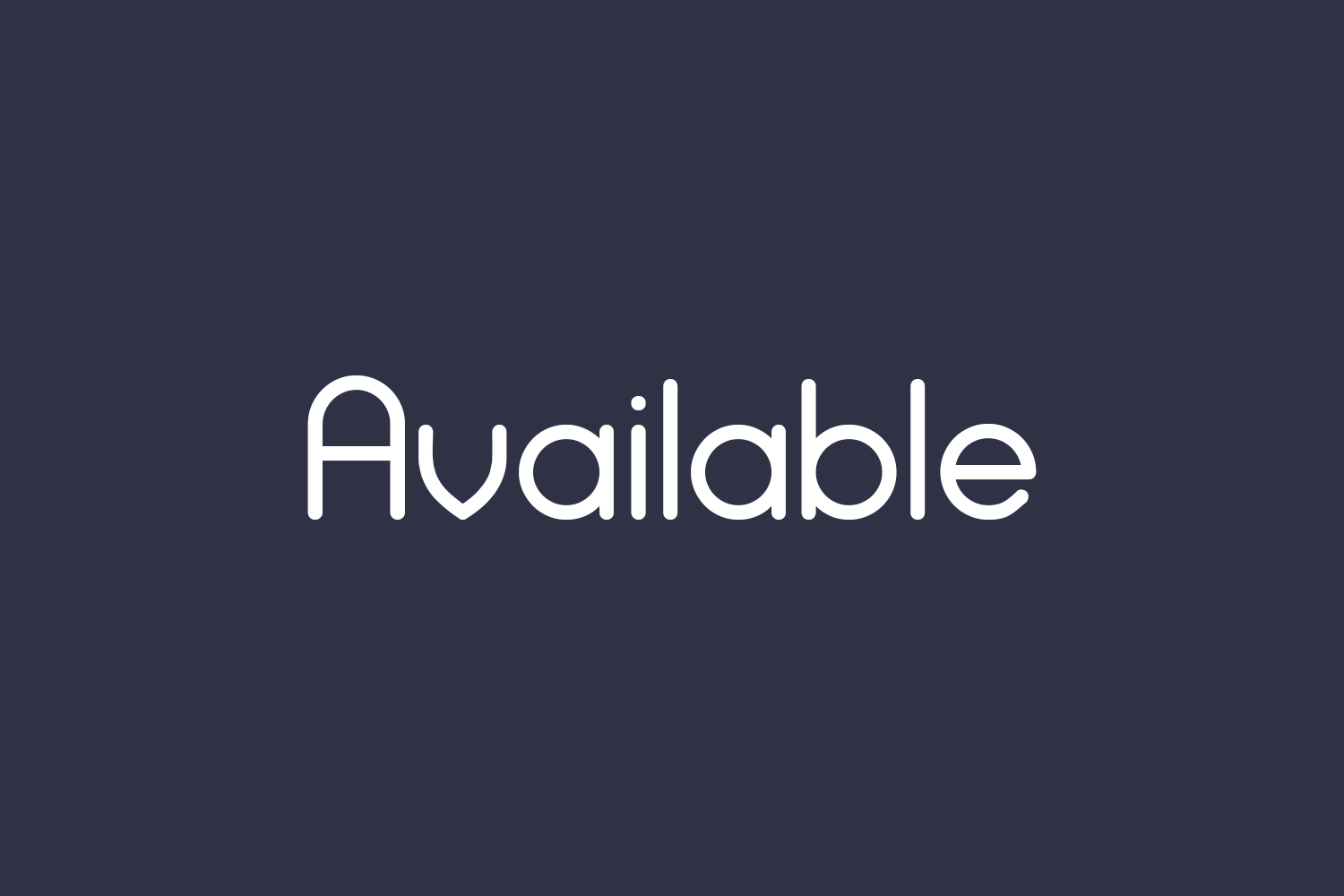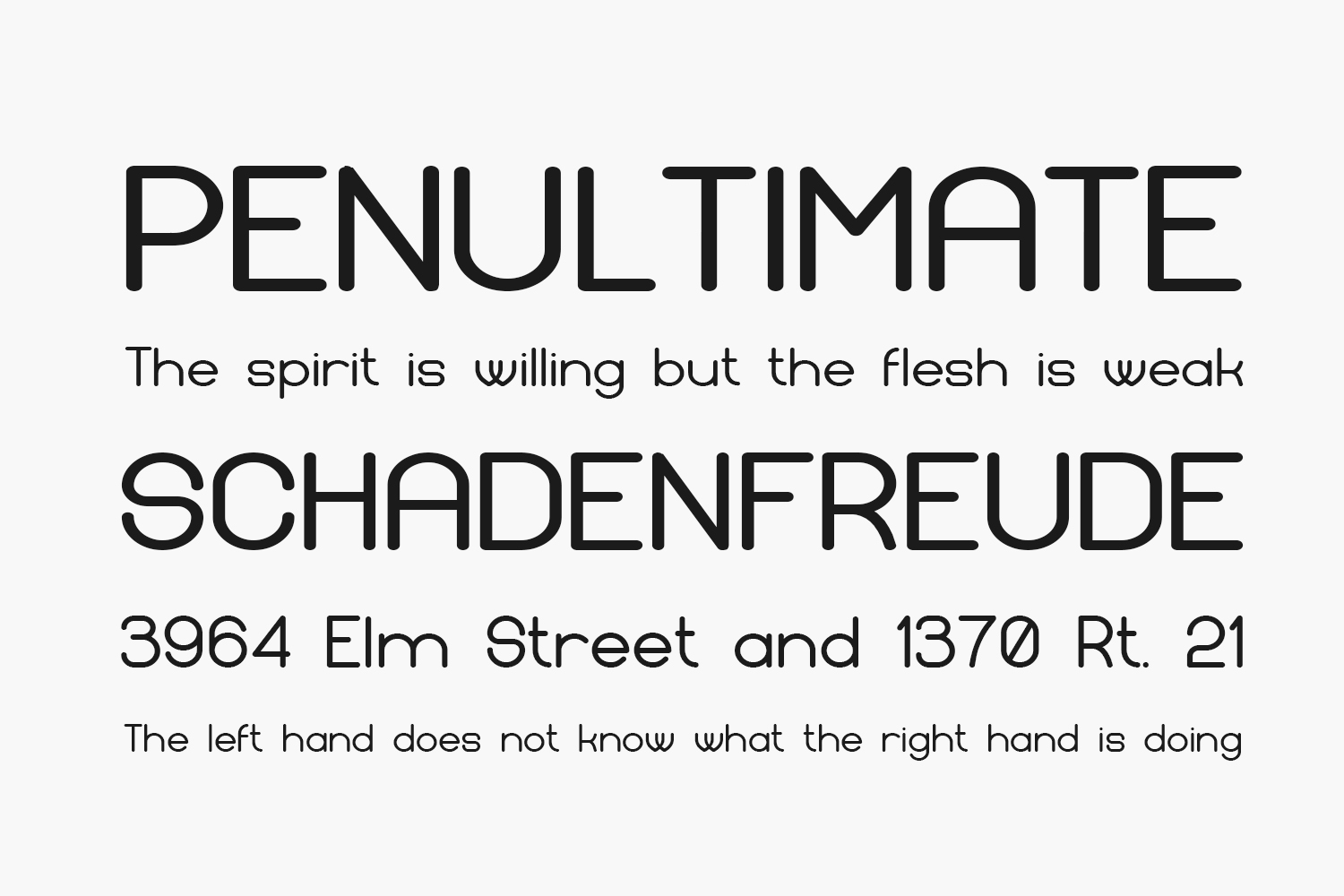
Available Free Font Family is an awesome sans serif font. It’s great for posters, banners, headlines, and much more. Download the font for free if you need it for personal use or purchase the full version for commercial use.
Designed by Vladimir Nikolic